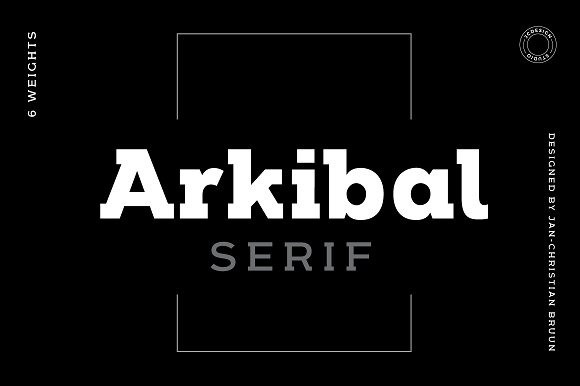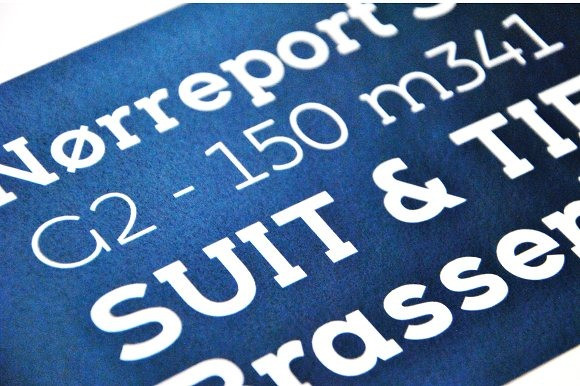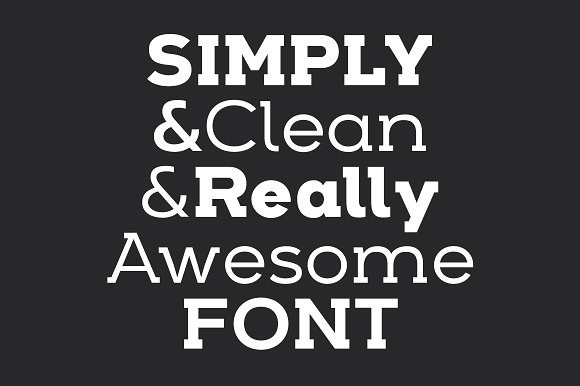
Arkibal Font
The inspiration comes from some old documents and store signs from my great-grandfather’s old gold frame factory from 1838. He delivered hits for many artists of that time, and various museums in Copenhagen. It seems it was interesting to try and reproduce some of the old characters and make a new font out of them.
Uppercase “G” was the first letter and is the starting point of the Arkibal Display font. G stands for in danish “Guldramme”, which means “Goldframe”. Arkibal is coming from an almost old danish tradional name “Arkibald”, only without “d”.